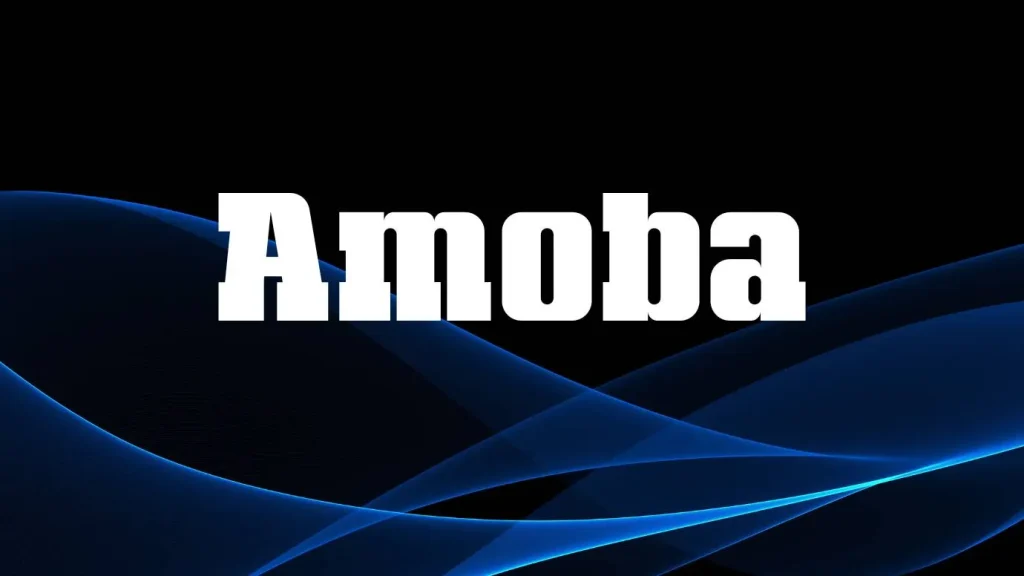
Amoba Font is very eye-catching as well as has uppercase and lowercase letters, multilingual symbols, numerals, punctuation, and ligatures. The style also includes ligatures and punctuation marks.
Line creative is the creator of this font. It is very eye-catching and can be used for many different things, from crafts to mockups to logos, business cards to invitation cards.
The design of this font style belongs to the serif typeface category. This design also includes ligatures and punctuation marks.